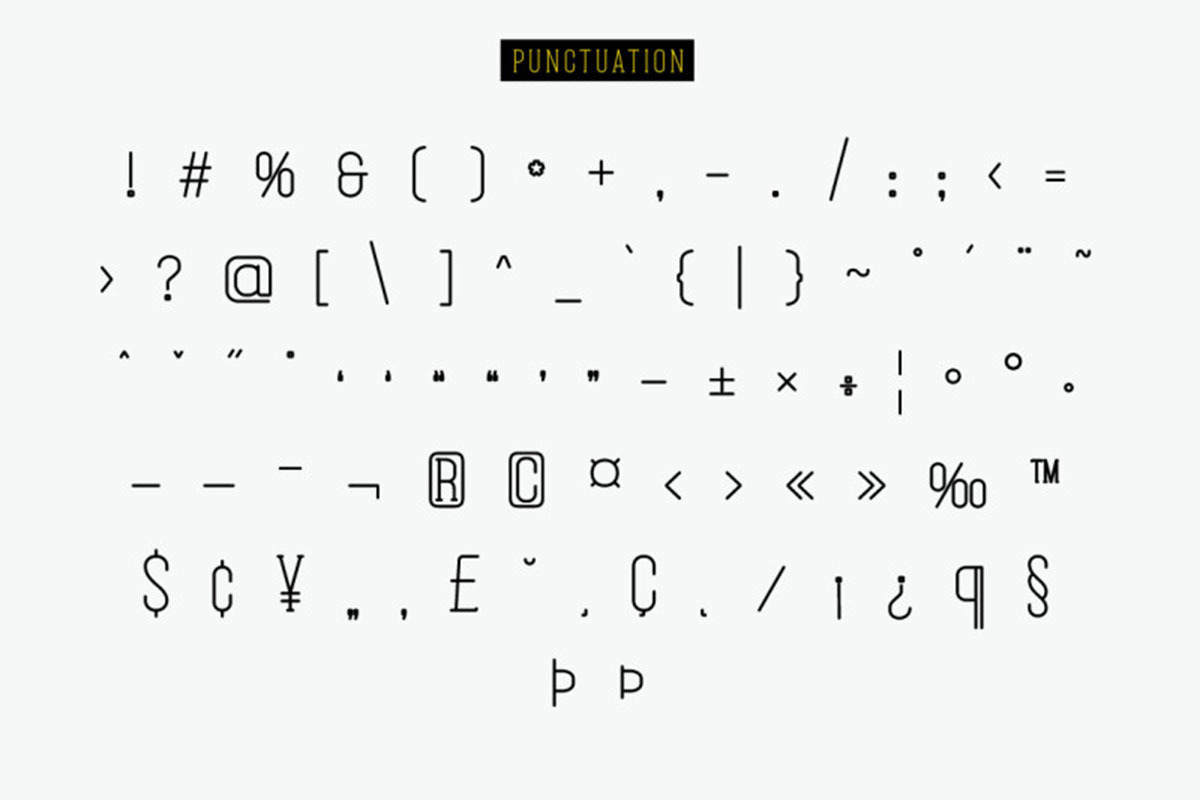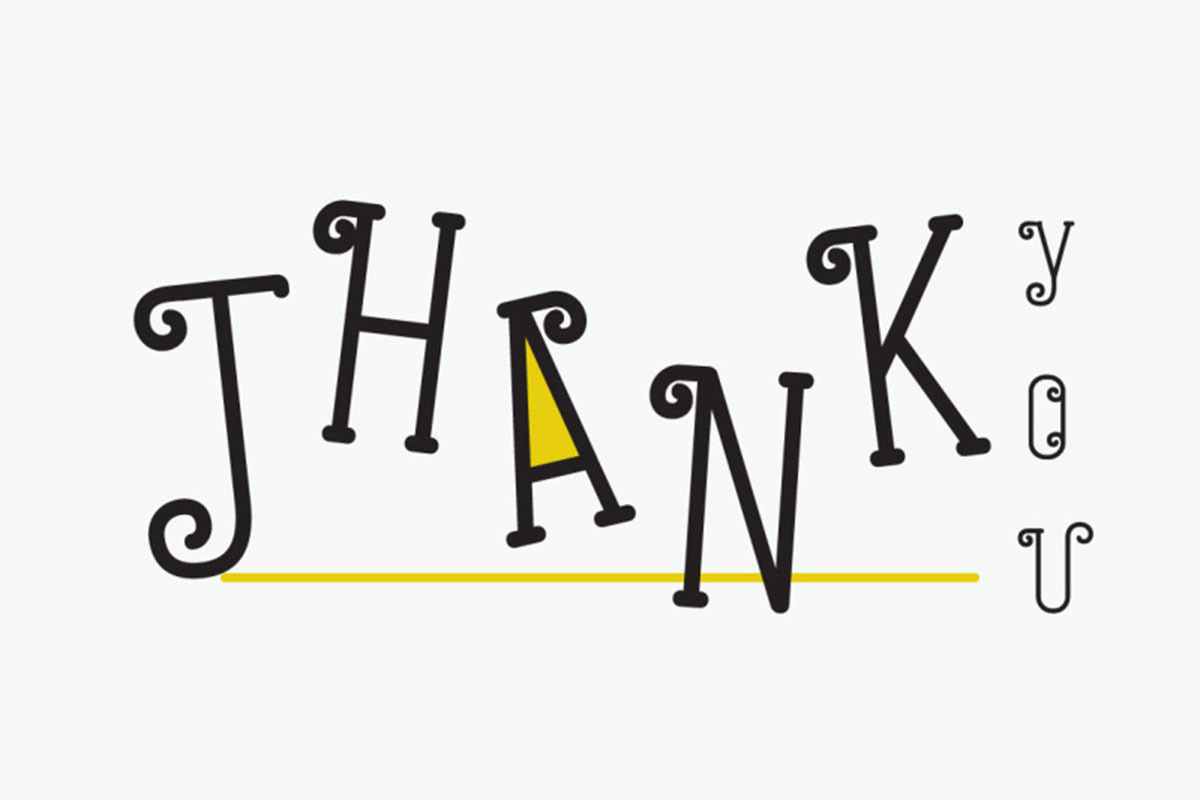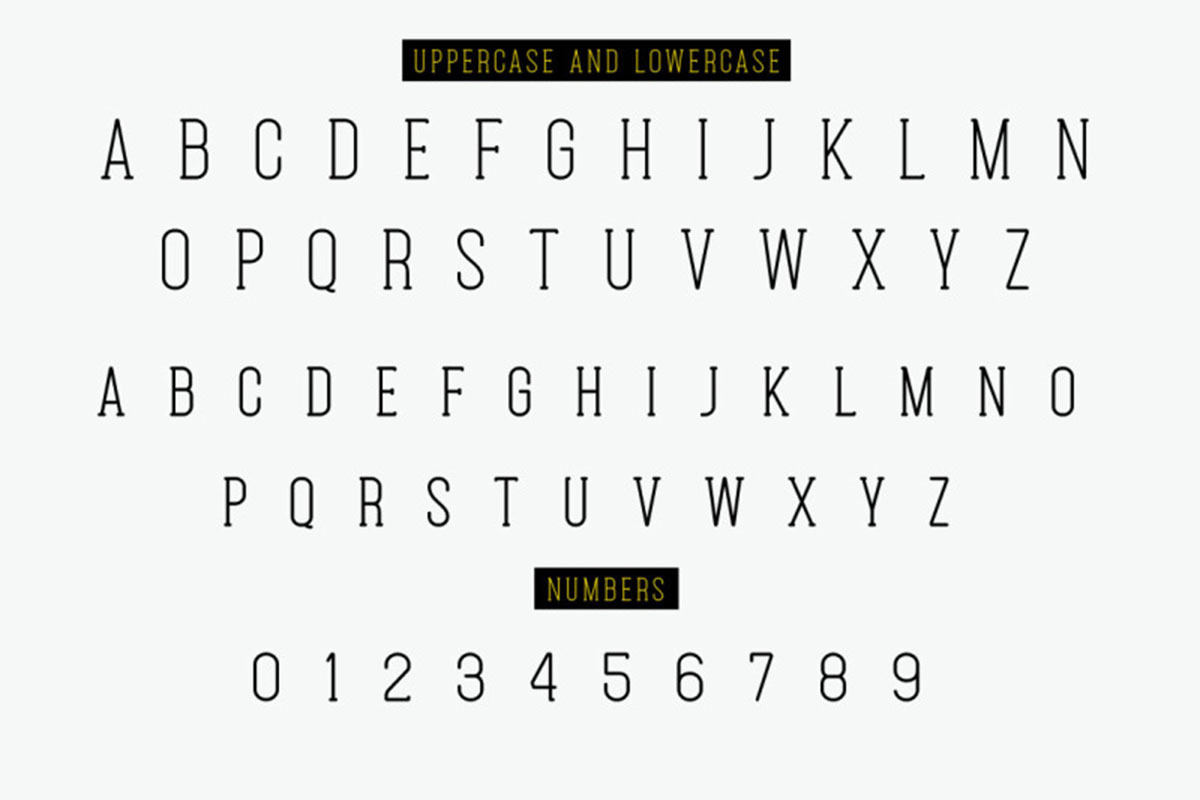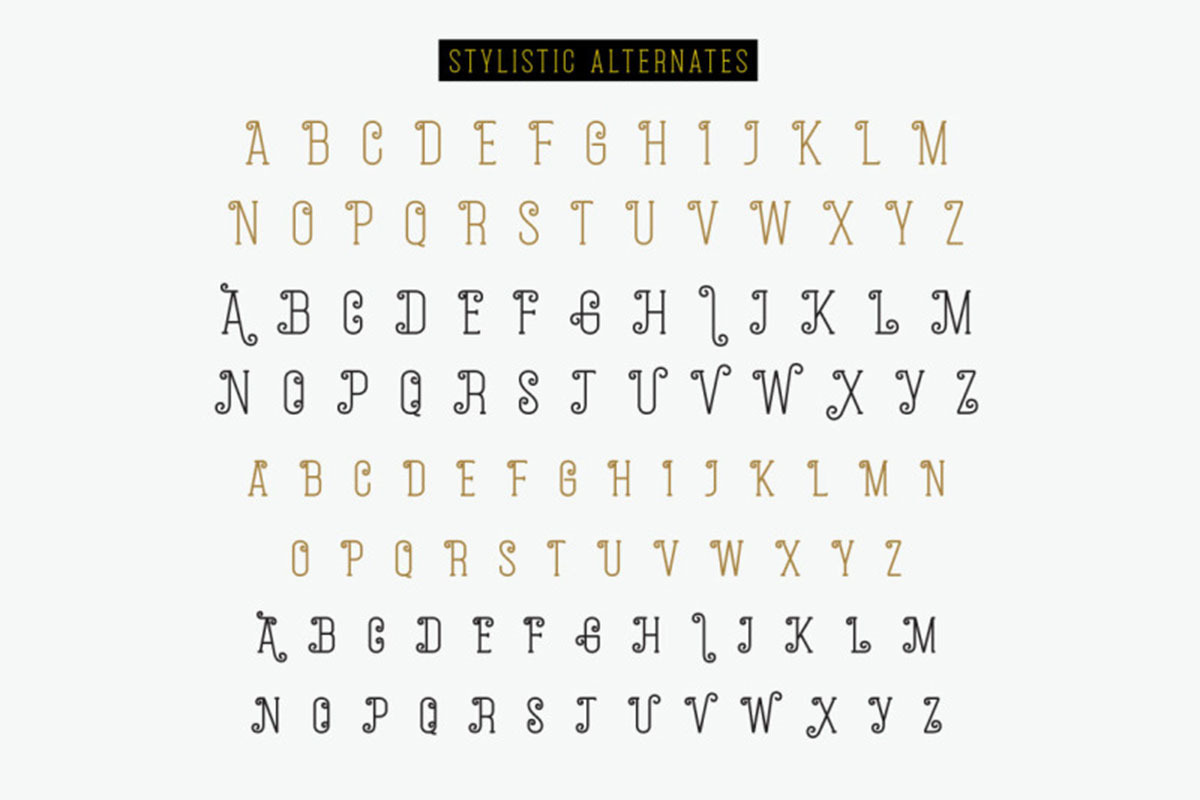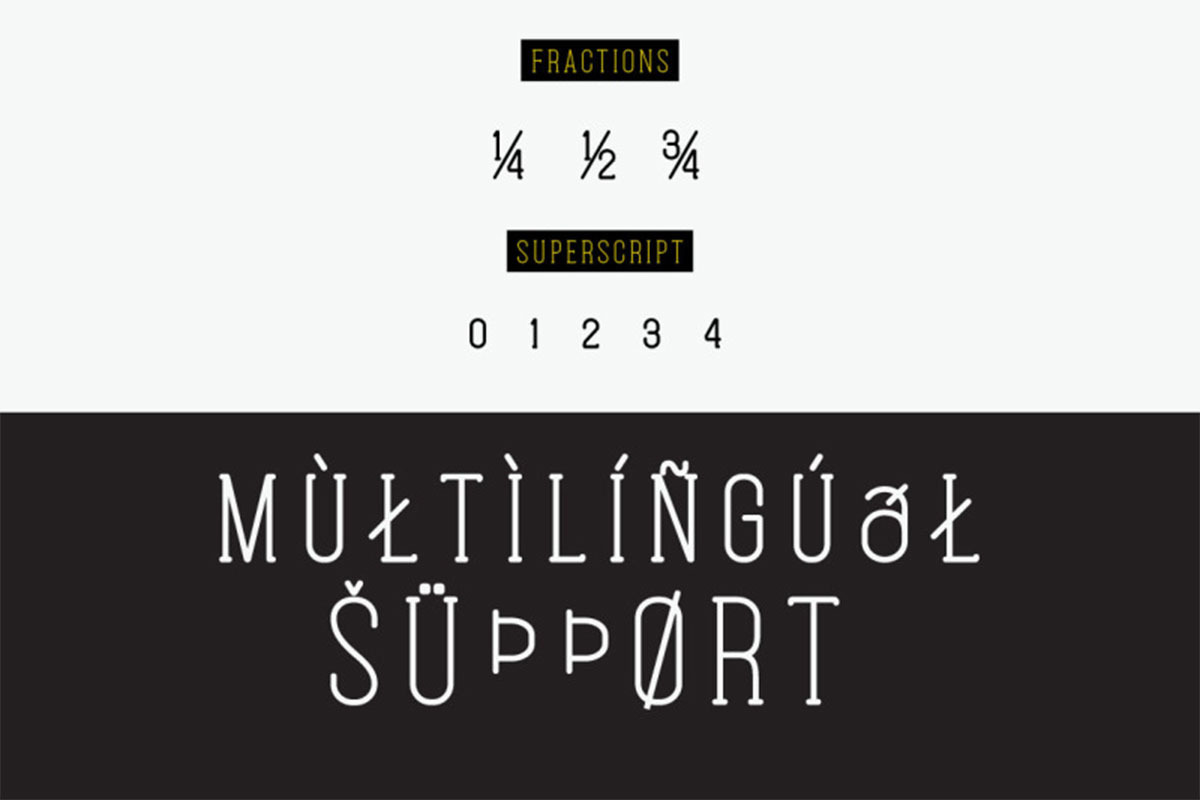
Sorry Facking
Sorry Facking is a monoline slab serif font. Comes with a slab serif style that can appear casual, and is equipped with alternate styles that show a strong retro. So attractive to the eye that sees it.
Sorry Facking so perfect for whatever your design needs are that require a slab serif font. For headings, brandings, or more.
OPEN TYPE FEATURES:
Stylistic Alternates (ss 001- ss 004)
Fractions
Superscripts
Multilingual Support, etc.